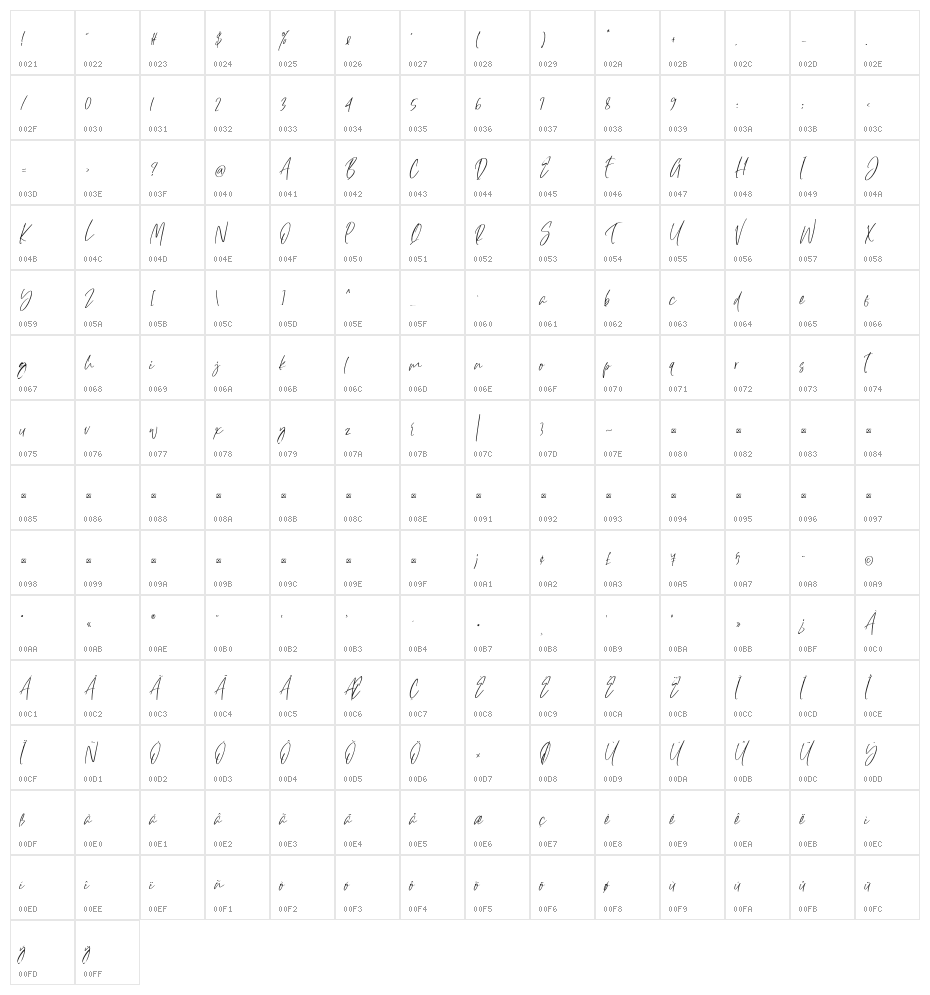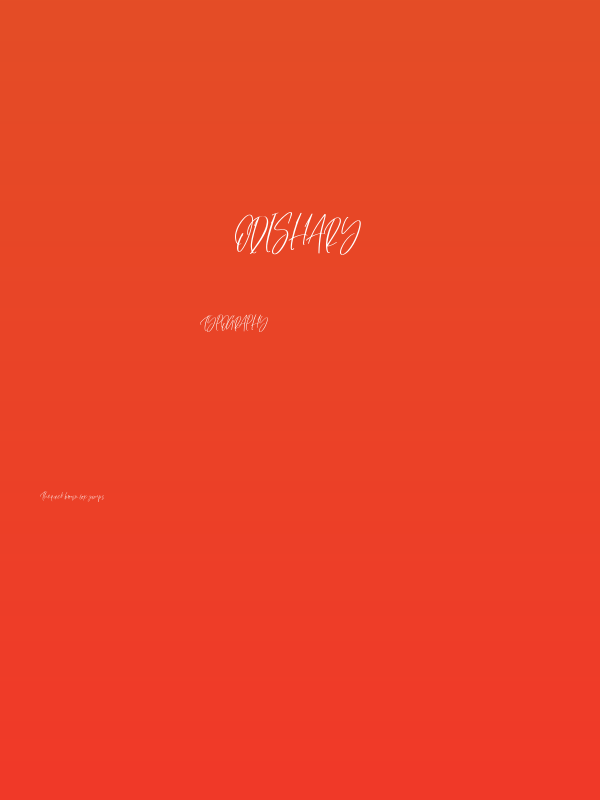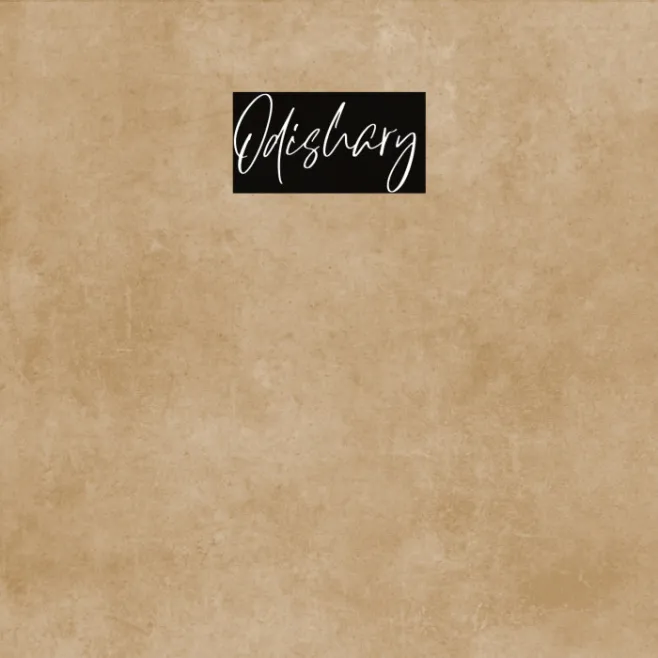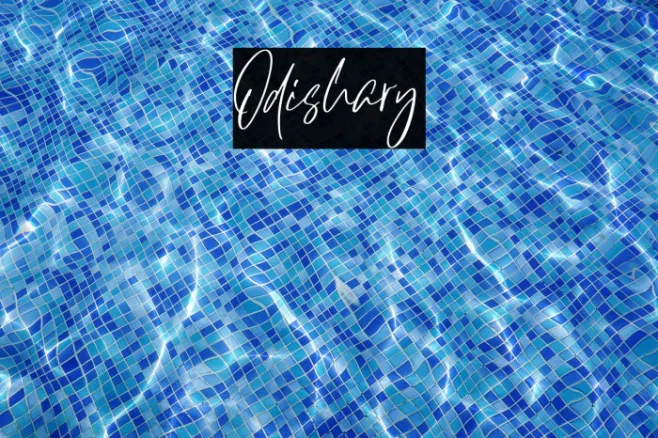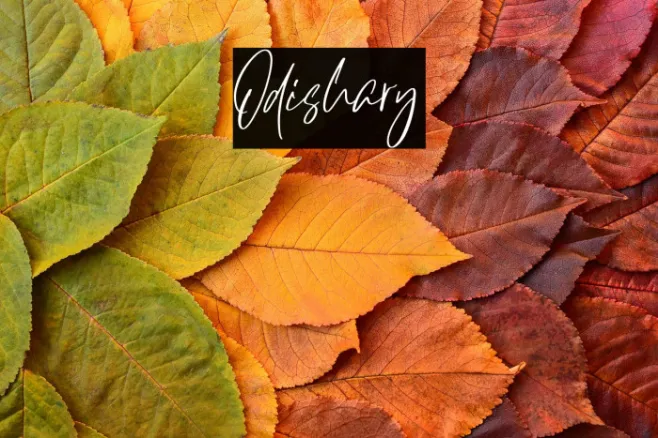
Odishary Font
Odishary Description
This font exudes a sense of elegance and fluidity, characterized by its cursive, handwritten style. The letters are gracefully connected, with smooth, flowing lines that give it a natural and organic feel. The uppercase letters are slightly more elaborate, with sweeping curves and loops, while the lowercase letters maintain a consistent, delicate appearance. The numbers and special characters are designed to match the overall aesthetic, ensuring a cohesive look across all elements. This font is perfect for projects that require a personal touch, such as invitations, greeting cards, or branding materials that aim to convey sophistication and warmth.
| Overall Style | Elegant, Organic |
| Use Case | Invitations, Branding, Greeting Cards |
| Proposed Projects | Ideal for wedding invitations, personal branding, greeting cards, and elegant packaging designs. |